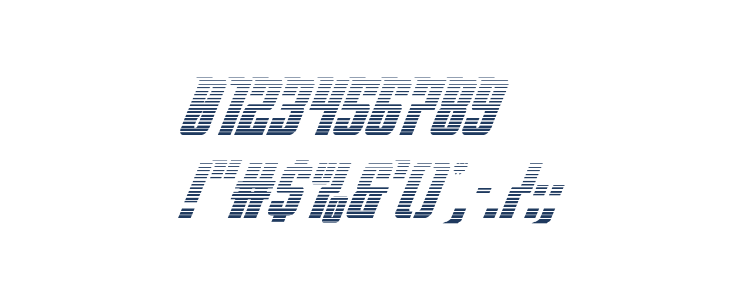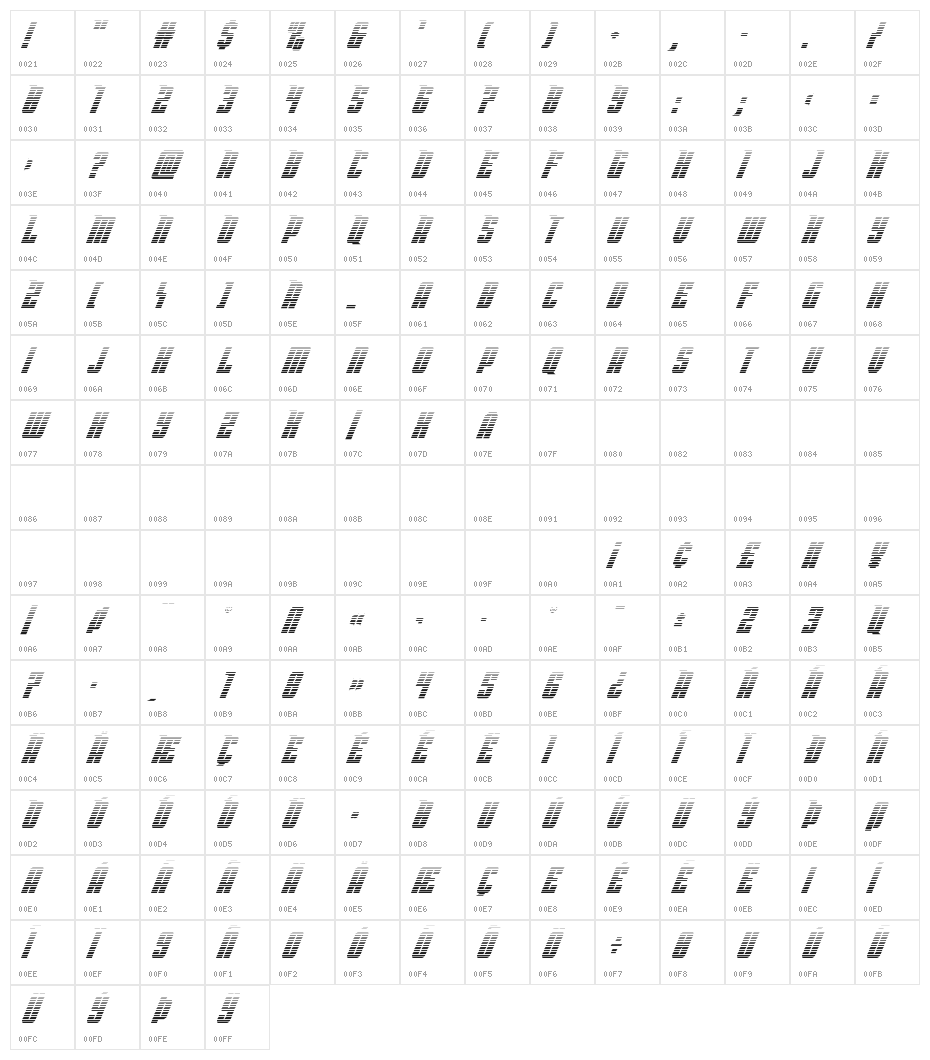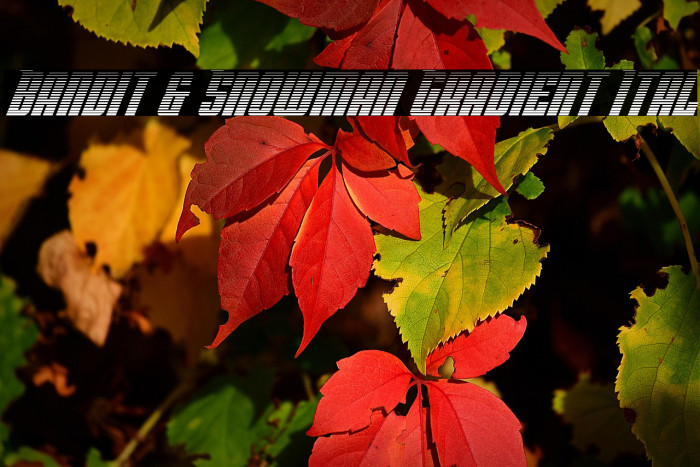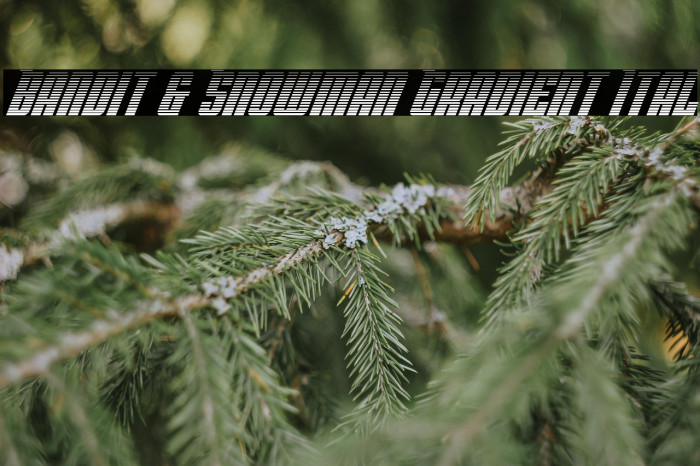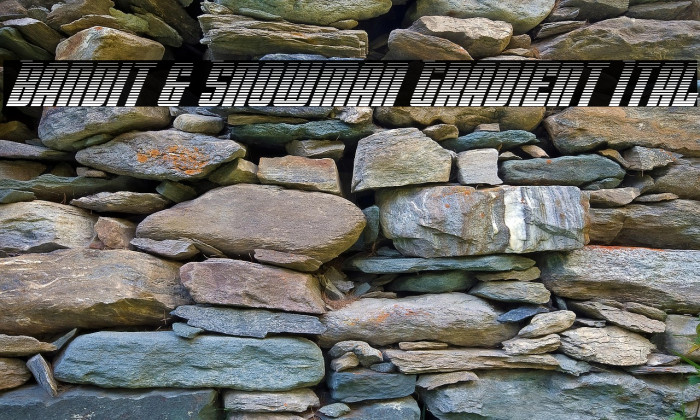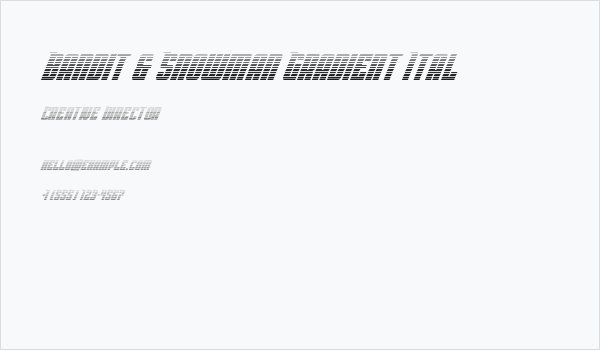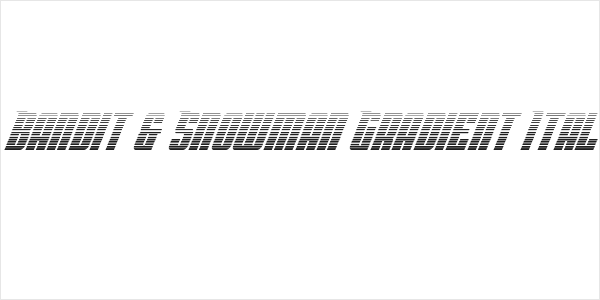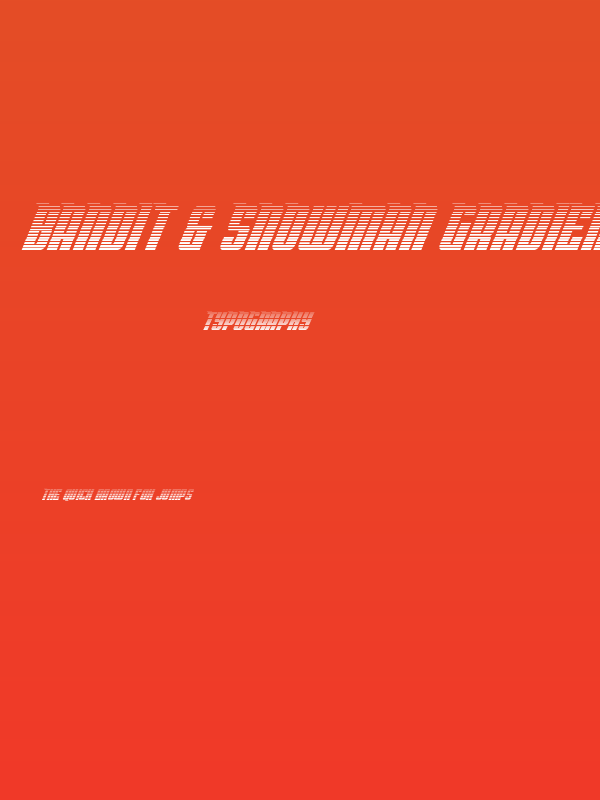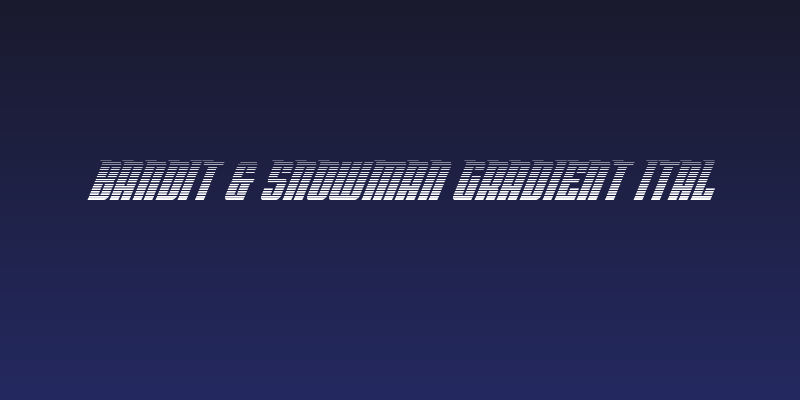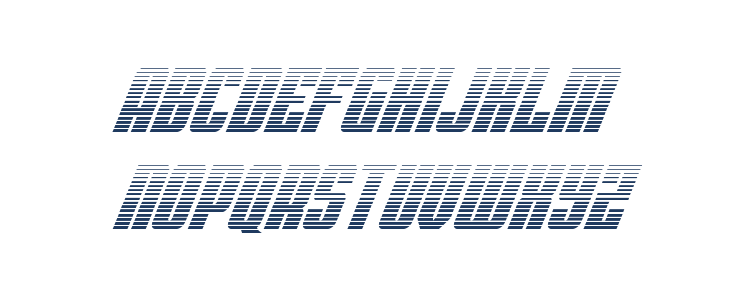
Bandit & Snowman Gradient Ital Font
Bandit & Snowman Gradient Ital Description
This font features a bold, italicized style with a distinctive gradient effect that gives each character a dynamic, three-dimensional appearance. The letters are constructed with horizontal lines that create a sense of movement and energy, making it ideal for attention-grabbing designs. The uppercase and lowercase letters maintain a consistent width, while the numerals and special characters are designed to complement the overall aesthetic. The font's unique style is both modern and futuristic, making it suitable for a variety of creative projects.
| Overall Style | Modern, Futuristic |
| Proposed Projects | Ideal for posters, logos, video game graphics, and futuristic-themed designs. |